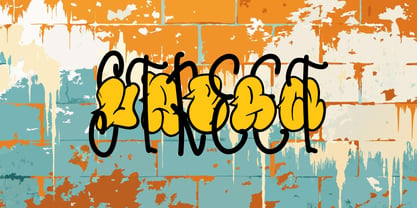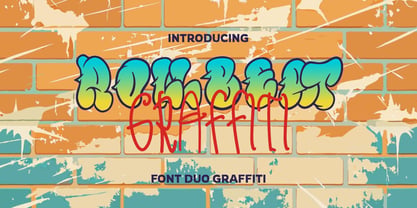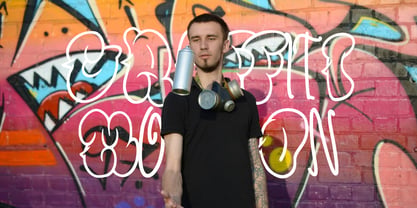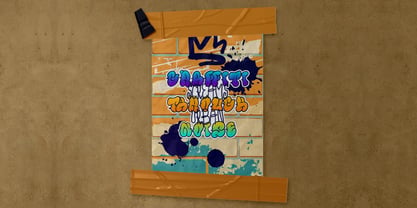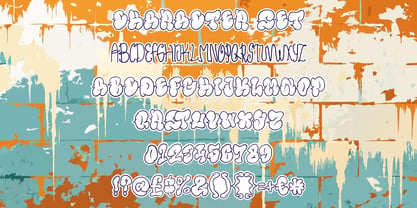
Rollbeat Graffiti
by Shanaf
The Rollbeat Graffiti Font Family was designed by Yesie Erma Yunita and published by Shanaf. Rollbeat Graffiti contains 2 styles and family package options. More about this family
Rollbeat Graffiti is a vibrant font duo that channels the raw energy of urban expression. It pairs two distinctive graffiti styles: a bold, bubble-lettered display and a tall, hand-tagged script. The bubble style evokes the classic wall art often seen across city streets, featuring rounded shapes, clean outlines, and layered gradients. Meanwhile, the handwritten version brings an authentic freestyle touch, imitating real spray-painted tags. When used together, these fonts create dynamic visual contrast—perfect for edgy compositions that demand attention. Layouts are accentuated by a layered aesthetic that blends retro funk and raw rebellion.
The Rollbeat Graffiti duo is ideal for logo design, poster artwork, streetwear branding, music covers, and merchandise. This duo fits projects that target youth culture, underground movements, or graffiti-themed art. Whether splashed across a brick wall background or laid over gritty textures, the fonts maintain readability while adding attitude. Use Rollbeat Graffiti to build an identity that feels unapologetically expressive and deeply rooted in street art culture.
Designers: Yesie Erma Yunita
Foundry: Shanaf